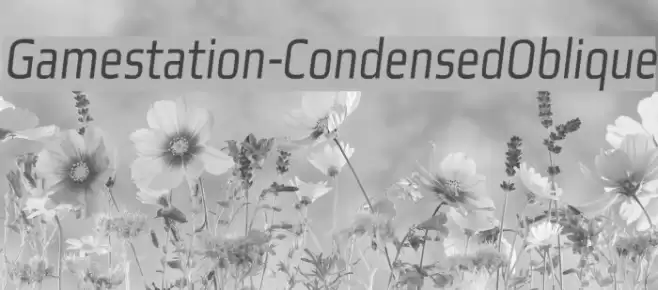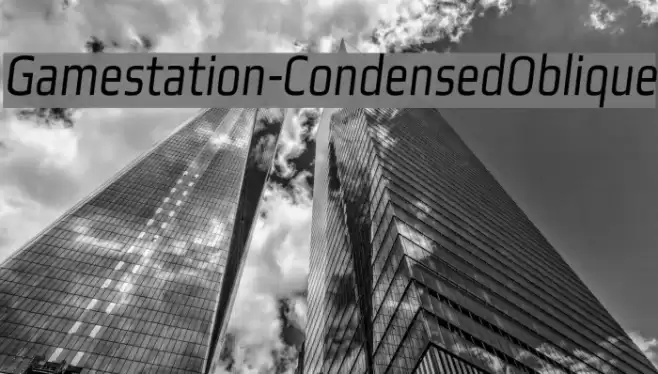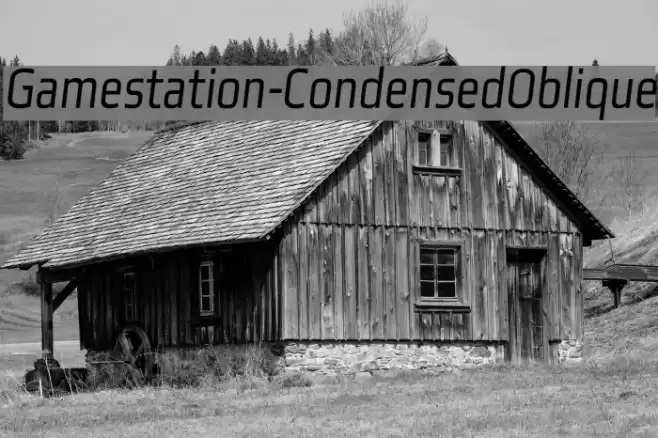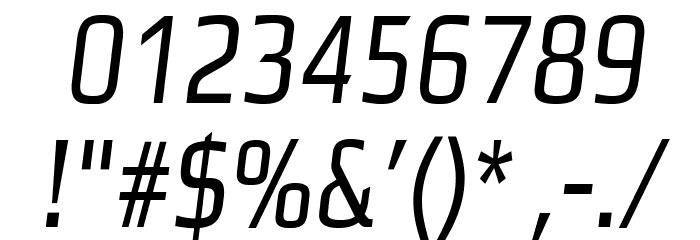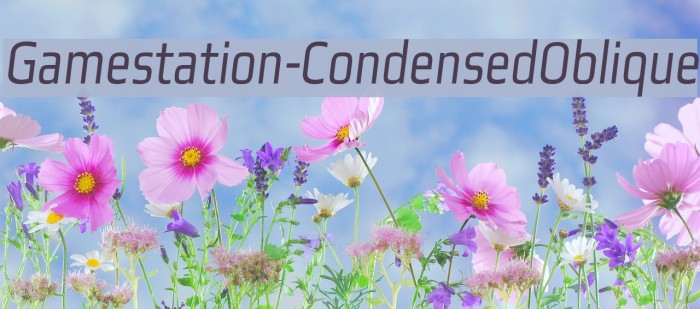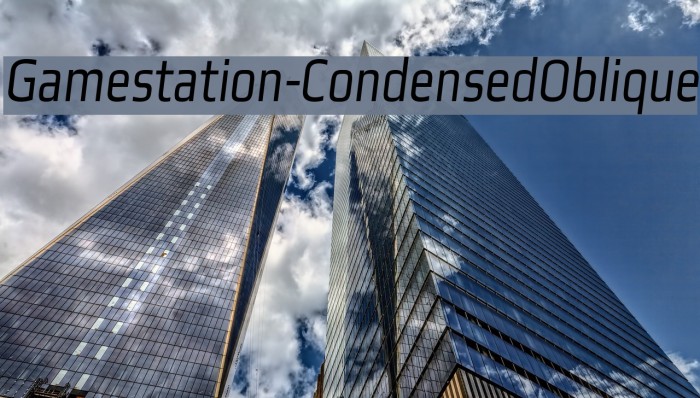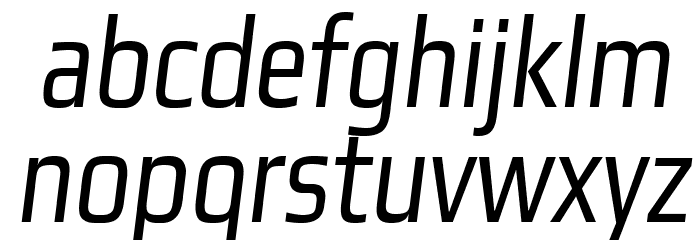
Gamestation-CondensedOblique Font
Gamestation-CondensedOblique Description
This font features a sleek, modern design with a condensed and oblique style. The characters are slightly slanted, giving a dynamic and forward-moving appearance. The strokes are consistent in width, providing a clean and uniform look. The font maintains a balance between readability and style, making it suitable for various applications. The uppercase and lowercase letters are well-proportioned, and the numerals are clear and distinct. Special characters are included, enhancing its versatility. The overall aesthetic is contemporary and professional, ideal for projects that require a modern touch.
A modern, condensed oblique font with a sleek and dynamic style from Uncategorized fonts.